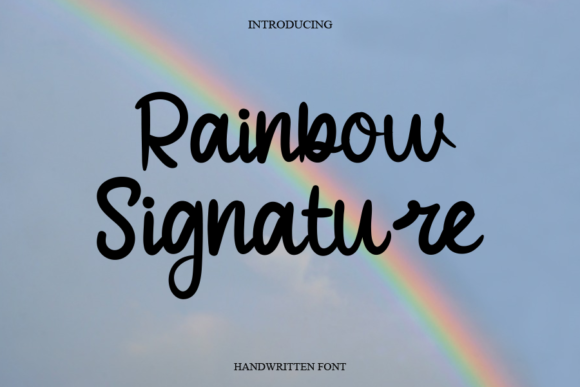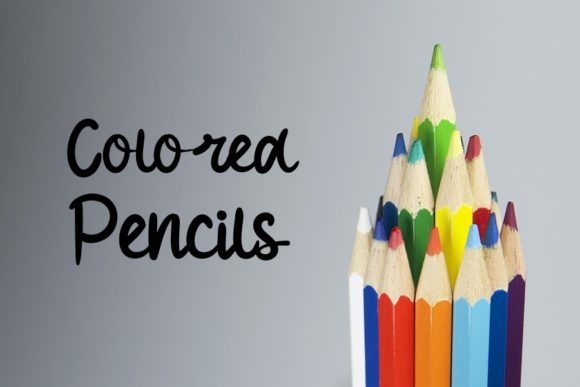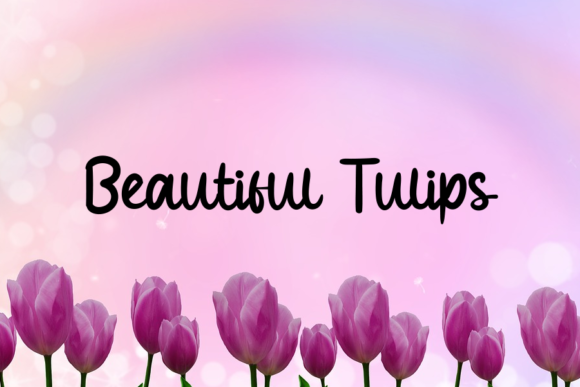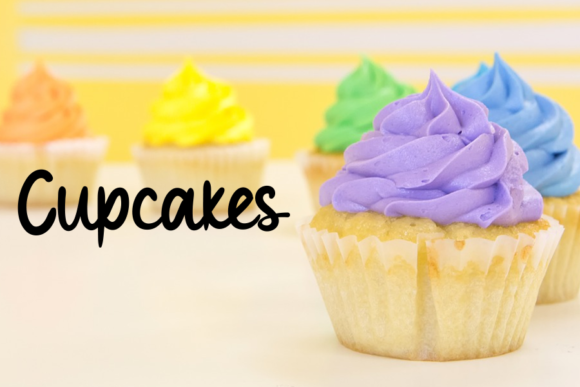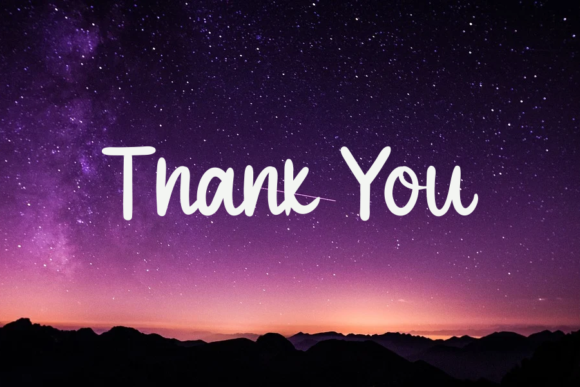
About Rainbow Signature Font
Rainbow Signature is a delicate, elegant, and flowing handwritten font that exudes beauty and grace. With its beautiful and well-balanced characters, this font is a versatile choice that matches a wide range of design styles. Neatly crafted and highly detailed, Rainbow Signature adds a touch of sophistication to your projects.
The delicate and flowing nature of Rainbow Signature brings a sense of elegance and refinement to your typographic compositions. Its graceful letterforms and smooth strokes create a harmonious and fluid aesthetic. Whether you’re working on invitations, branding materials, quotes, or any other project, Rainbow Signature font enhances the overall visual appeal with its delicate and elegant demeanor.
Rainbow Signature’s well-balanced characters and attention to detail contribute to its polished and refined appearance. Each letter is carefully crafted to maintain consistency and precision, resulting in a font that exudes quality and craftsmanship. This attention to detail elevates your projects, making them stand out with a touch of sophistication.
The versatility of Rainbow Signature allows it to match a wide pool of designs. Its elegant and flowing style complements various themes and aesthetics, including wedding designs, fashion branding, logos, and more. Whether used as a headline, title, or decorative element, Rainbow Signature font brings a touch of elegance and refinement to your designs.
Incorporating Rainbow Signature into your projects allows you to infuse them with a delicate and elegant touch. Its beautiful and well-balanced characters bring a sense of harmony and sophistication, making your designs visually captivating and appealing.
In summary, Rainbow Signature is a delicate, elegant, and flowing handwritten font that adds beauty and refinement to your designs. Its well-balanced characters and attention to detail contribute to its polished and sophisticated appearance. Embrace the versatility of Rainbow Signature font and let it enhance your projects with its delicate and elegant presence.